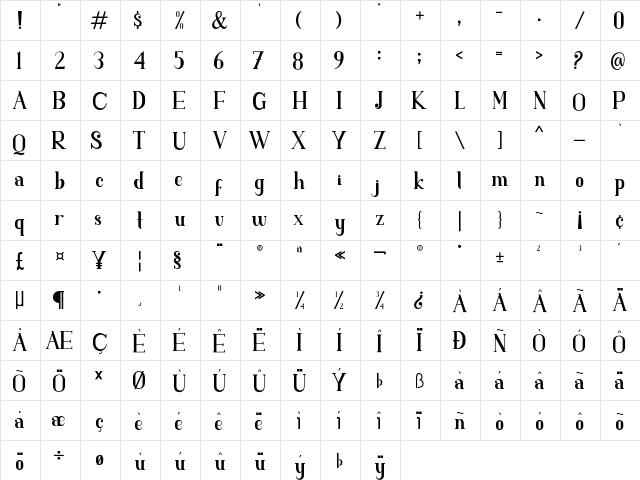
SINGGEL PARENT SERIF Regular
| Foundry | AFREDO.FK |
| Designer | ZULFIKAR ALI |
Design Context for SINGGEL PARENT SERIF Typeface
SINGGEL PARENT SERIF carries the refined structure of traditional serif typography, with bracketed terminals and considered proportions that communicate credibility and craft.
Pro Tip: Set SINGGEL PARENT SERIF with slightly loose tracking in headlines to let each letterform's detail read clearly at display sizes.